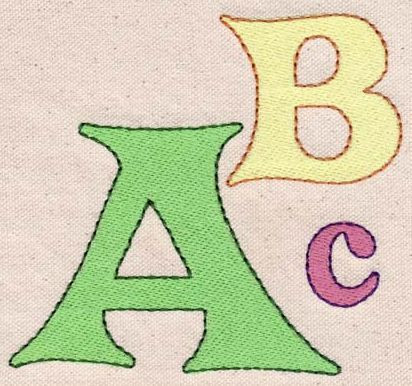
156 Crazy Harold Font
Crazy Harold Font is finished in fill stitch with triple stitch outline. Uppercase letters, Lowercase letters and Numbers in 1", 2" and 3" heights (height is based on capital "A" and all other letters are proportional). The Following letters in the 3" set are wider than 4" and require larger than the standard 4x4 hoop; A, M, V, W, j, m, w. All other characters in all sizes fit 4x4 hoops.